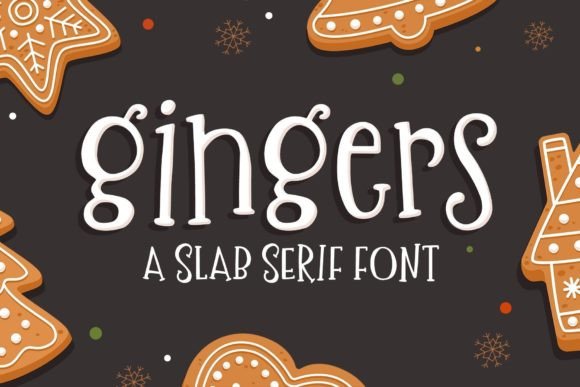
In a world where words dance and stories come alive, meet Gingers Font, a slab serif typeface that captivates hearts and ignites imagination. Inspired by the warmth of the holiday season, this font family is a whimsical delight, adding a touch of magic to every letter and word it adorns.
Gingers Font isn't just a collection of characters; it's an expression of creativity, a vessel for emotions, and a gateway to storytelling. With its charming curves and playful personality, this font family transforms ordinary text into a visual feast, drawing readers into the depths of your stories and leaving them spellbound.
Step into a realm where fonts are not mere tools, but storytellers in their own right. Gingers Font is a master of visual intrigue, weaving its way through pages, captivating readers with its unique charm. Its ability to effortlessly transition from large, attention-grabbing headlines to smaller, easily readable text makes it a versatile choice for a wide range of projects.
Whether you're crafting a heartwarming holiday tale or a captivating novel, Gingers Font is the perfect companion. Its embraceable warmth and enchanting personality bring depth and character to your words, leaving a lasting impression on readers' minds. Dive into the world of Gingers Font and let your imagination soar.